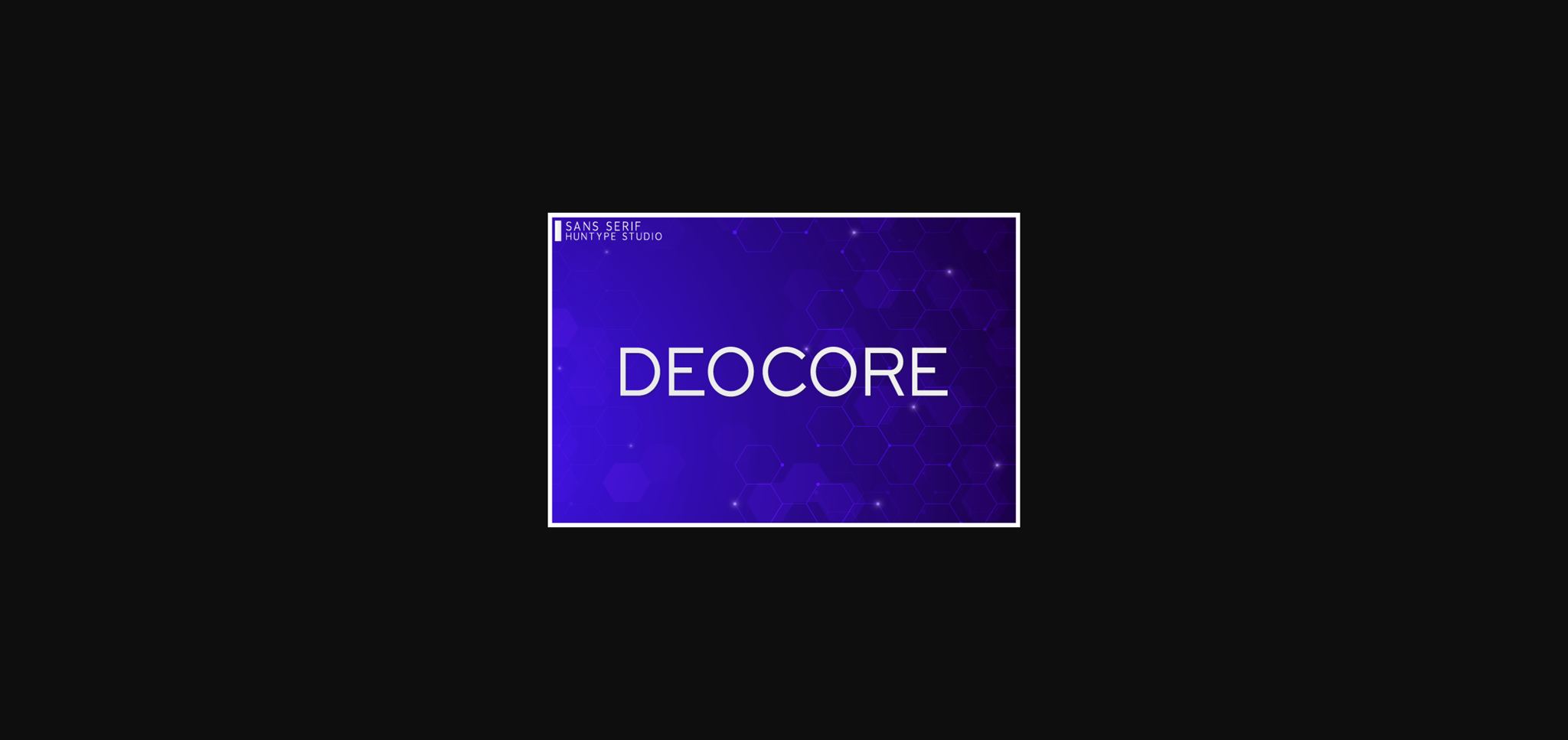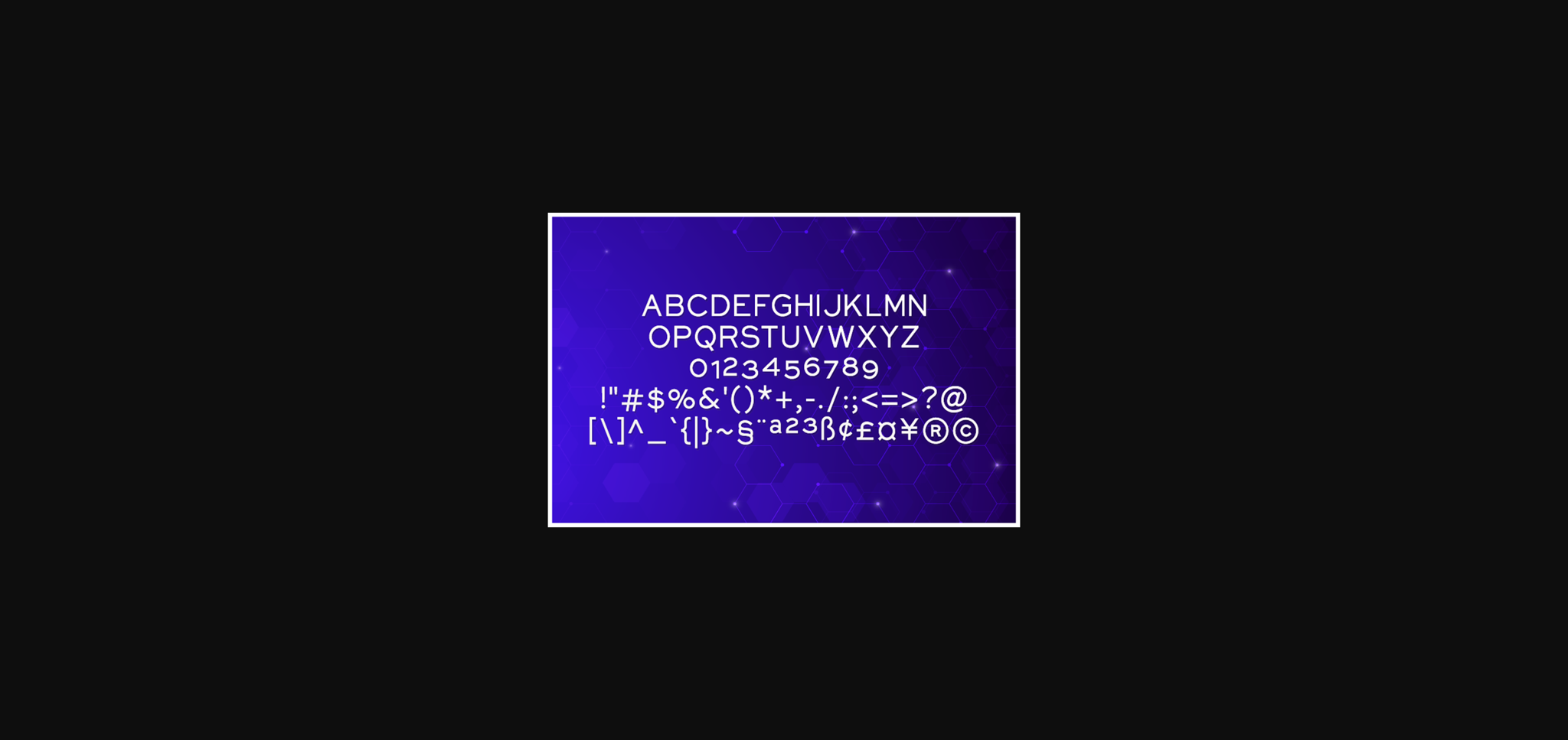
About Deocore Font
Deocore is a smooth sans serif font. It will complement any design need perfectly with its perfectly balanced mix of the smooth and sharp!